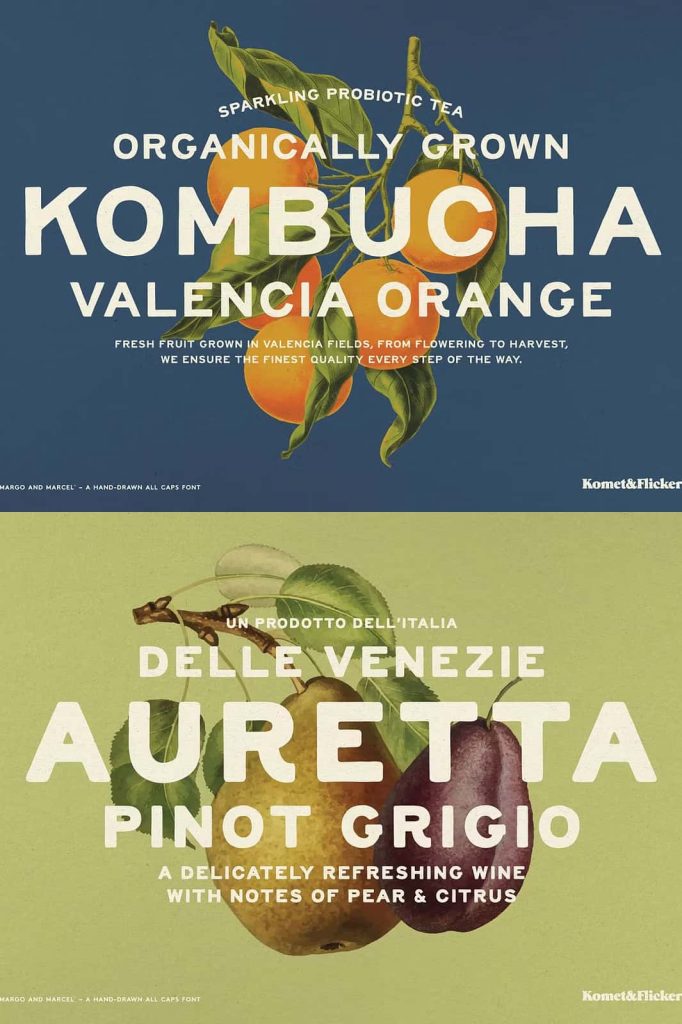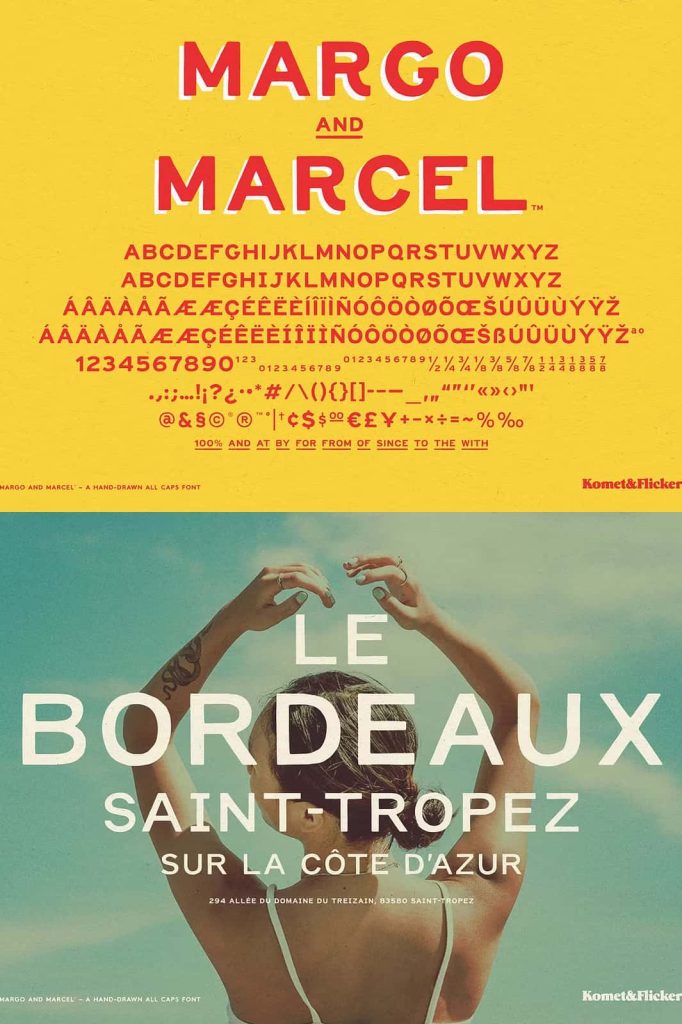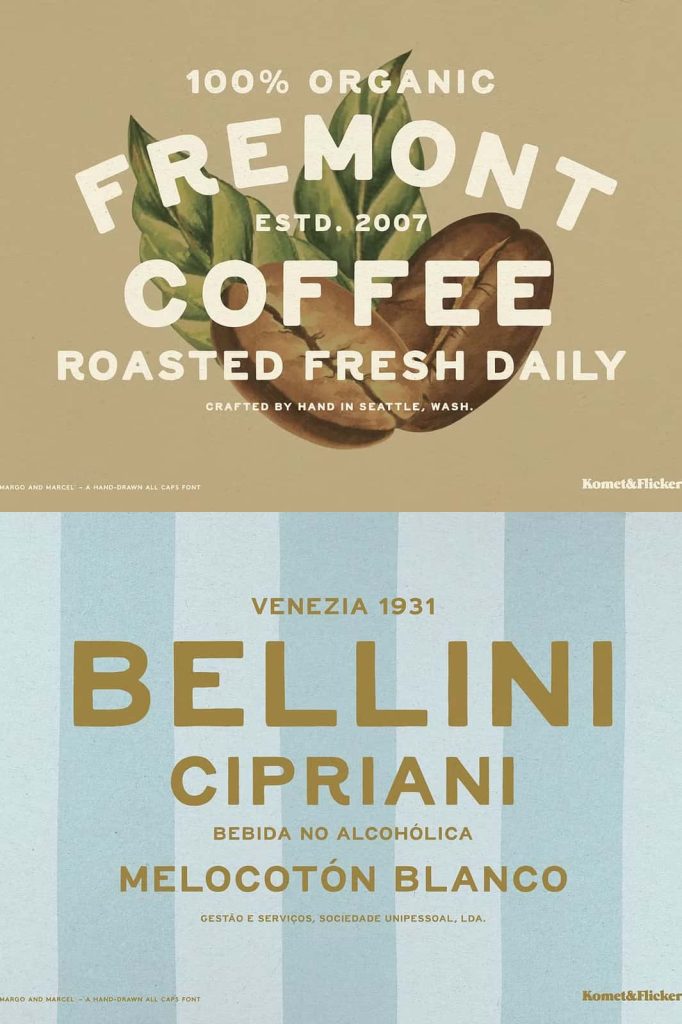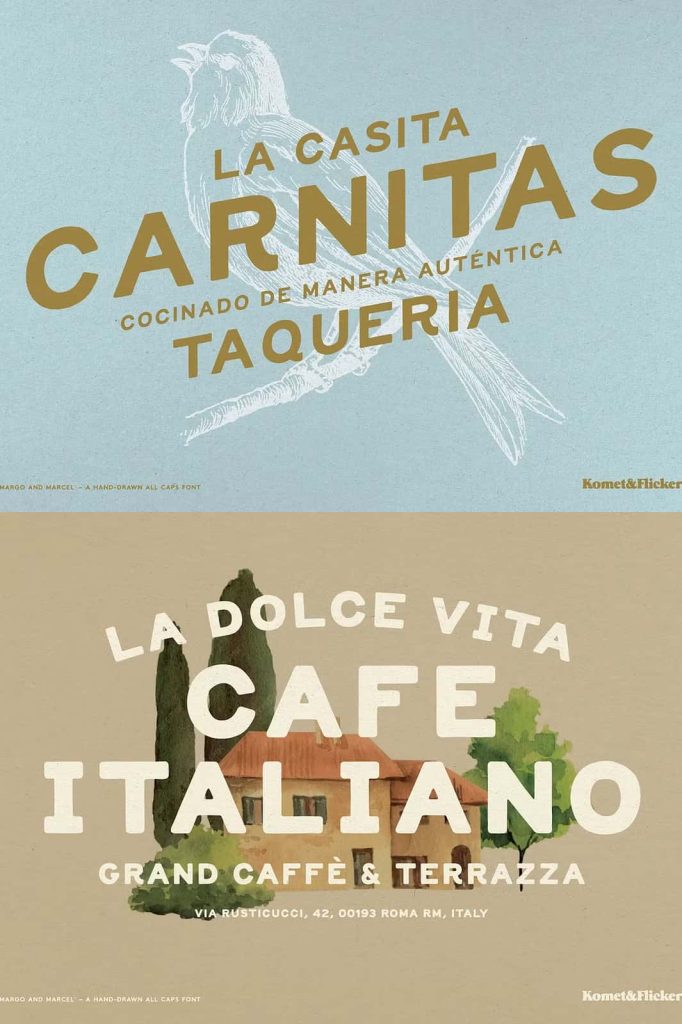
Margo and Marcel Font
Margo and Marcel is a charming all caps font created for designers who want to add warmth, personality, and an approachable character to their creative work. With its casual appearance and friendly visual rhythm, this typeface gives every word a relaxed and human touch. It avoids the stiffness often found in formal display fonts and instead creates an inviting atmosphere that feels natural, cheerful, and easy to connect with.
Designed with a down-to-earth personality, Margo and Marcel works beautifully across branding, packaging, posters, social media graphics, invitations, editorial layouts, and many other creative applications. Its all caps construction gives messages a strong visual presence, while its approachable character keeps the overall design feeling comfortable and welcoming. Whether you are building a playful brand identity or creating a simple promotional graphic, this font can help your typography communicate with confidence without appearing overly formal.
A Friendly and Approachable Display Font
Margo and Marcel stands out because it combines strong uppercase typography with a relaxed personality. The all caps format gives your words immediate visibility, making the font especially effective for titles, headlines, logos, labels, and other prominent text. At the same time, its casual character prevents large text from feeling aggressive or overly rigid.
This balance makes Margo and Marcel an excellent choice for projects that need a personal and welcoming visual identity. Instead of simply presenting information, the font helps create an emotional connection with the audience. Its friendly appearance can make a business feel more approachable, a product feel more enjoyable, or a campaign feel more playful.
Casual Typography with a Human Touch
Margo and Marcel brings a human quality to typography through its relaxed visual character. The design feels less mechanical than many traditional display typefaces, allowing it to communicate a sense of personality and authenticity. This quality makes it particularly useful for independent brands, creative businesses, lifestyle projects, and personal ventures that want to avoid a corporate or overly polished appearance.
Use the font to communicate ideas in a way that feels direct and natural. Its casual style can support designs that celebrate creativity, friendship, craftsmanship, everyday experiences, and positive energy. The result is typography that feels familiar while still maintaining enough presence to attract attention.
Perfect for Playful Branding
Margo and Marcel can play an important role in a memorable brand identity. Its distinctive all caps appearance gives brand names and short phrases a clear visual structure, while its friendly personality creates a recognizable tone. This combination makes the font especially useful for brands that want to appear creative, accessible, modern, and personable.
Use Margo and Marcel for logos, wordmarks, brand slogans, packaging titles, business cards, promotional materials, and social media branding. A short brand name can immediately gain more personality when displayed in a confident all caps style. You can also combine the font with a clean secondary typeface to create contrast between display text and supporting information.
Branding Ideas
Margo and Marcel works well for coffee shops, creative studios, handmade businesses, clothing brands, lifestyle companies, restaurants, bakeries, stationery brands, children’s products, event businesses, and independent retailers. Its welcoming personality allows brands to communicate warmth without sacrificing visual impact.
For a logo, consider using Margo and Marcel with generous spacing and a simple layout. For packaging, use it prominently on product names or short descriptions to create an immediately recognizable appearance. For social media, combine the font with photography, illustrations, or bold graphic shapes to create engaging promotional content.
Great for Relaxed Layouts
Beyond branding, Margo and Marcel performs beautifully in relaxed editorial and graphic layouts. Its all caps construction makes it effective for section titles, poster headlines, magazine features, presentation covers, and promotional banners. The casual appearance gives designers plenty of freedom to build compositions that feel energetic without becoming complicated.
You can use the font as the main visual element or combine it with other typefaces to create hierarchy. Pairing a bold Margo and Marcel headline with a simple sans-serif body font can create a balanced composition. The contrast allows the display lettering to attract attention while the supporting text remains easy to read.
Ideal for Posters and Promotional Designs
Poster designers can use Margo and Marcel to create headlines that immediately communicate a friendly and energetic message. Its uppercase format gives short phrases strong visibility from a distance, making it suitable for event posters, promotional campaigns, seasonal advertisements, community announcements, and creative marketing materials.
With its confident uppercase presentation and down-to-earth personality, Margo and Marcel helps important messages stand out while keeping the overall design inviting. Use it to build memorable logos, engaging headlines, expressive packaging, and distinctive promotional graphics. When your project needs a typeface that feels personable, creative, and easy to connect with, Margo and Marcel offers a charming solution.